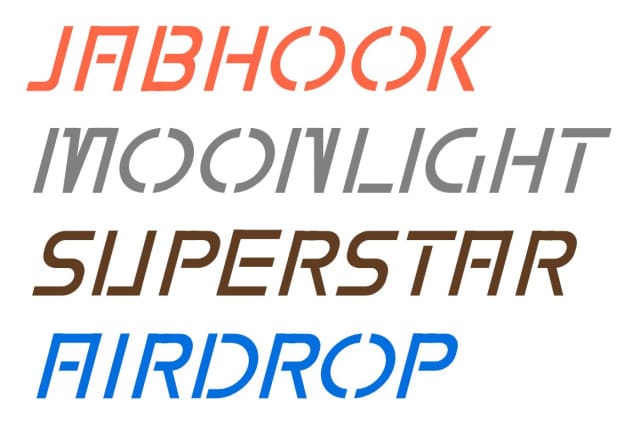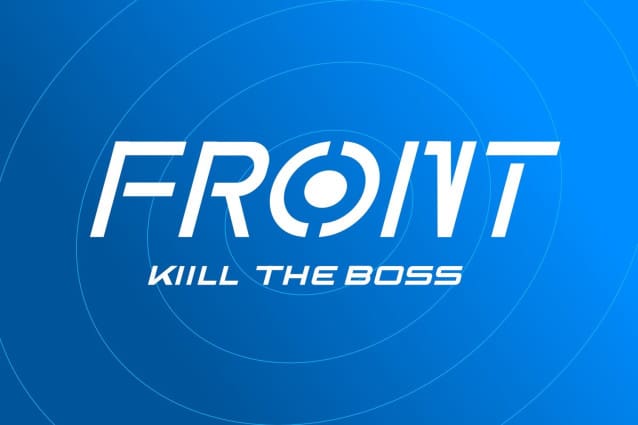
Wmxyo Italic Font
Wmxyo Italic Font, This bundle features strong, confident and powerful typefaces designed to work great with sports logos, club branding, apparel applications, labels and more.